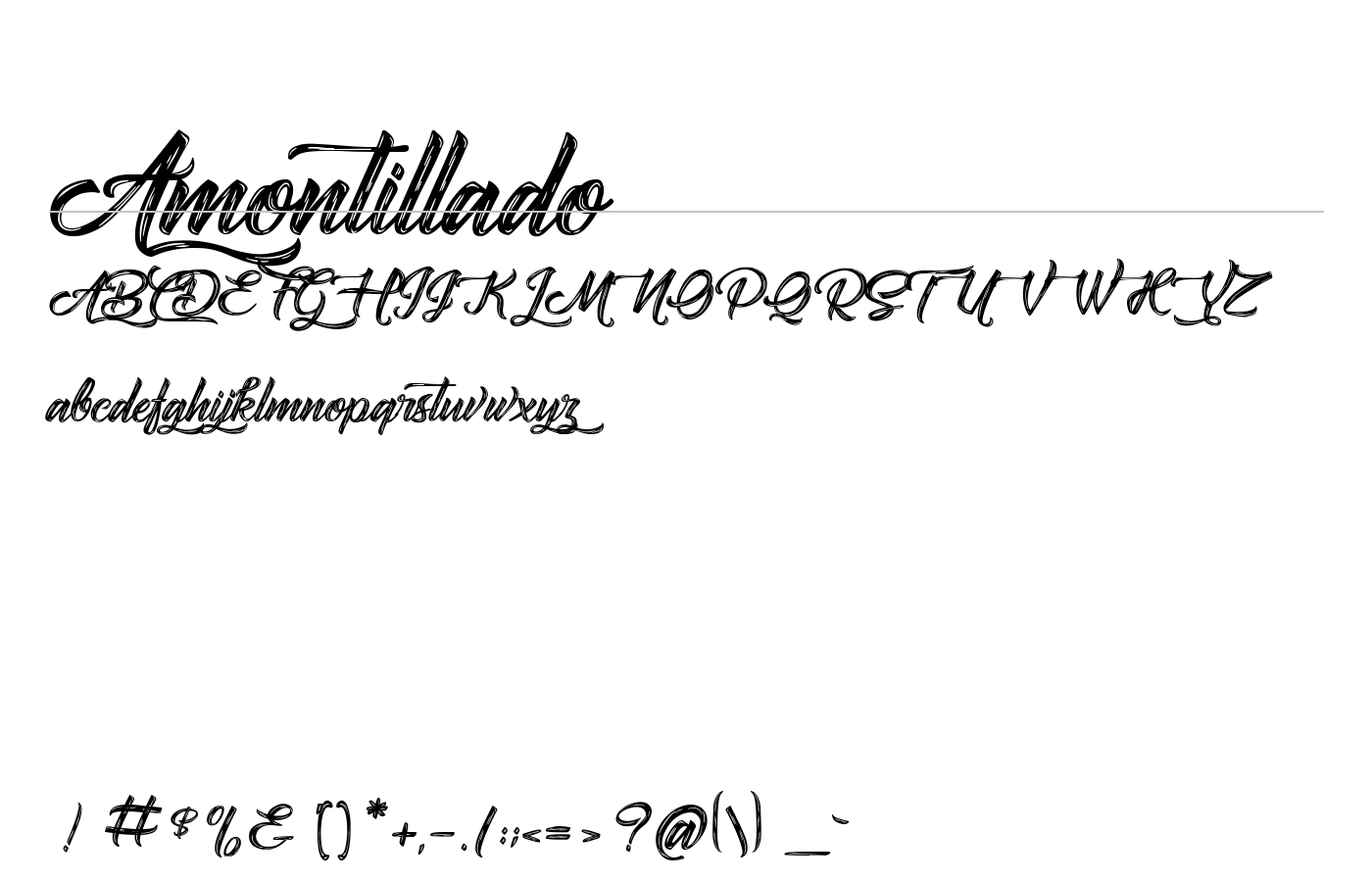
Amontillado is an elegant script font characterized by flowing, decorative strokes that mimic the fluidity of handwritten calligraphy. Its delicate, slightly condensed letterforms with graceful swashes convey a sense of sophistication and vintage charm, making it perfect for luxury branding, invitations, and stylish logos. This font’s intricate details and refined style lend a timeless, artistic feel ideal for projects needing a touch of elegance and personality.
Amontillado Font
About Amontillado Font